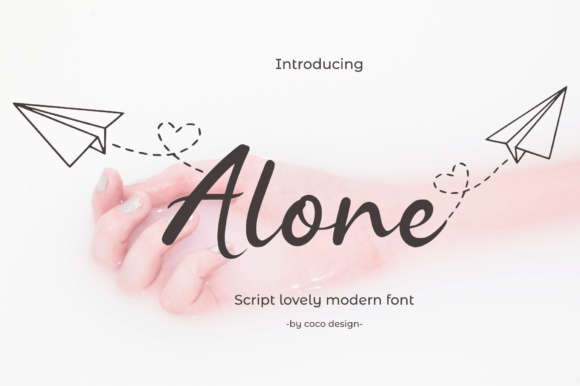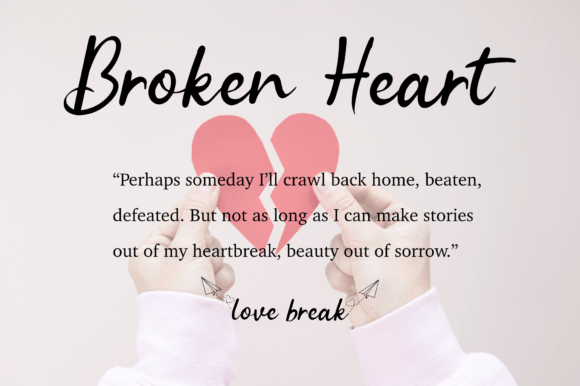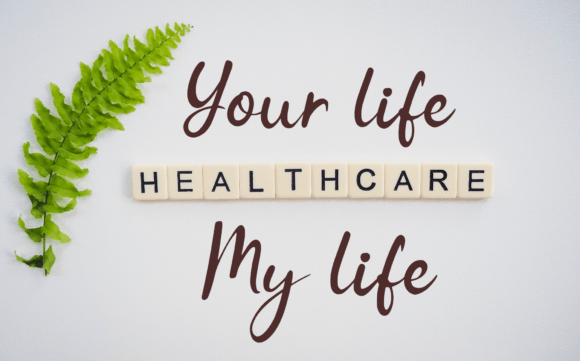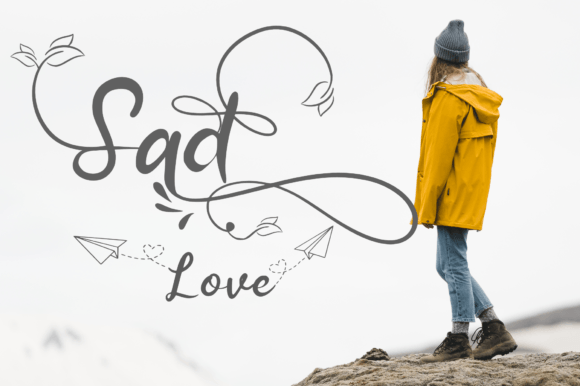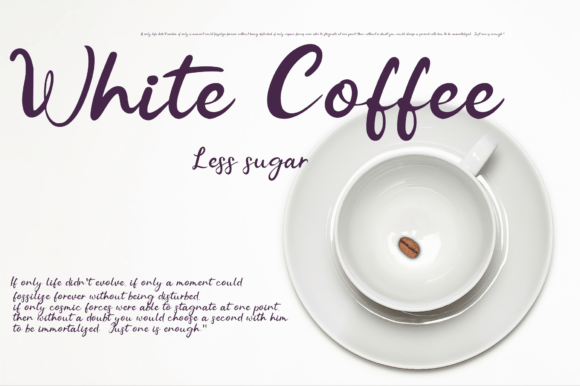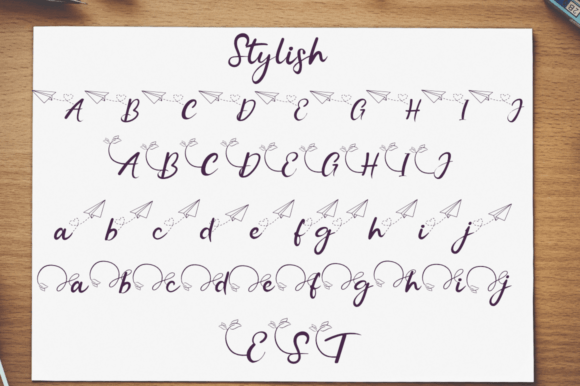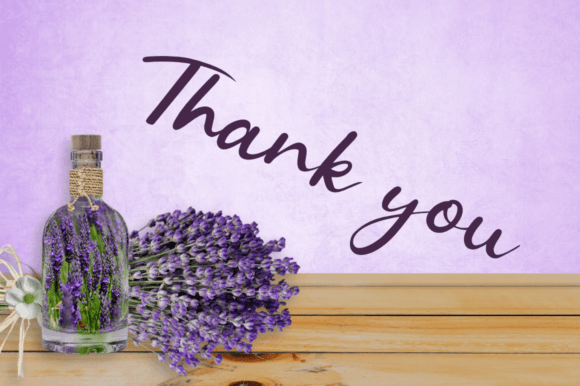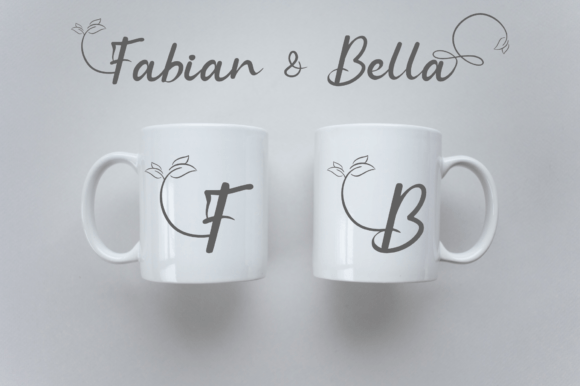
Alone Font
About Alone Font
**Alone** is a charming modern script font, designed with a natural and handwritten style that exudes loveliness. Its graceful letterforms make it a versatile choice suitable for a wide range of purposes, including headings, logos, wedding invitations, t-shirts, letterhead, signage, labels, news, posters, badges, and much more.
One of the standout features of Alone is its natural and organic appearance. The font captures the essence of handwritten text, bringing an authentic and personal touch to your designs. Its flowing and smooth letterforms create a sense of elegance and grace, making it visually appealing for various applications.
In headings and logos, Alone adds a touch of sophistication and uniqueness. Its modern script style can transform ordinary text into visually striking and memorable elements of your brand identity. Whether used in digital or print media, the font’s lovely design ensures that your headings and logos stand out with a distinct charm.
For wedding invitations, Alone lends a romantic and elegant atmosphere. Its loveliness adds a touch of sweetness and sophistication to wedding stationery, setting the tone for a beautiful and memorable event. The font’s natural style enhances the overall aesthetic of invitations, making them visually captivating and inviting for guests.
In t-shirts and apparel designs, Alone can create trendy and fashionable typography. Its modern script font can be used to display quotes, slogans, or brand names, adding a stylish and contemporary vibe to fashion designs. The font’s versatility allows it to adapt to different clothing styles and design themes, making it a popular choice in the fashion industry.
Alone is also suitable for various print and digital media, including letterhead, signage, labels, news, posters, and badges. Its elegant and natural style ensures readability and visual appeal, making it practical for a wide range of applications.
In summary, Alone is a lovely modern script font that brings a touch of elegance and charm to your designs. Its natural handwriting style and versatility make it a valuable asset for designers seeking a font that combines loveliness with functionality. Embrace the beauty of Alone and let it enhance your creative projects with its graceful and delightful presence.